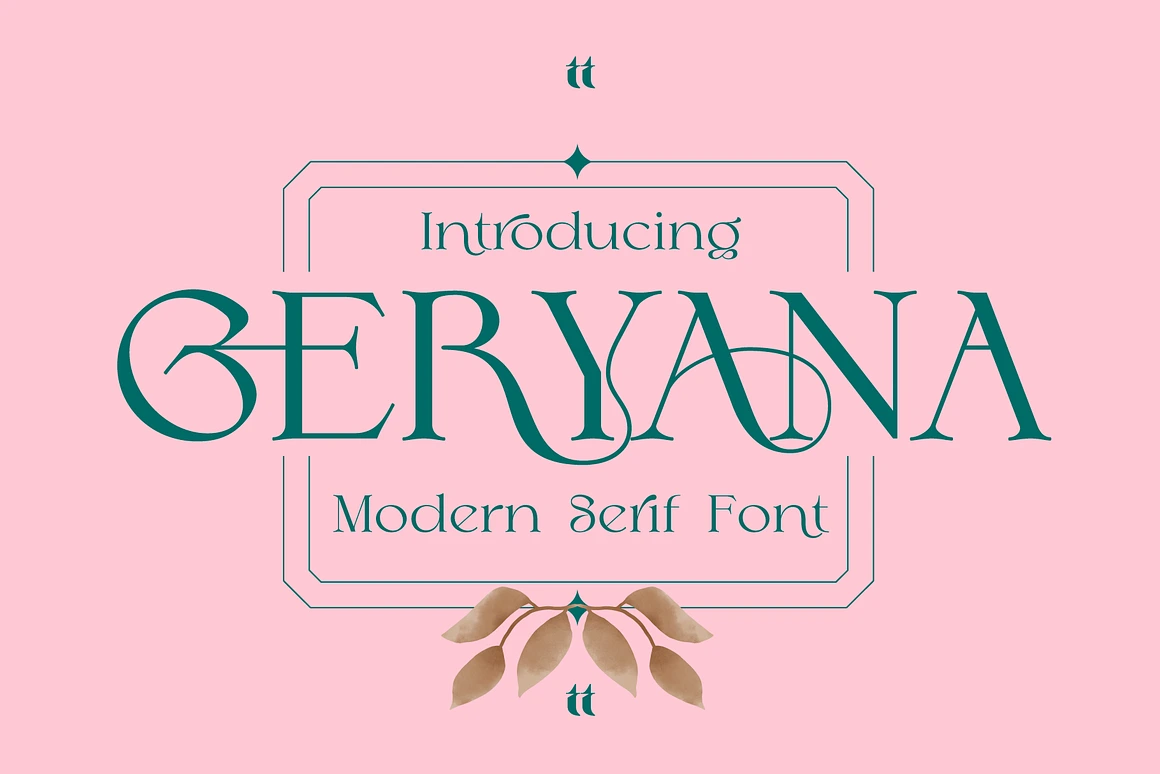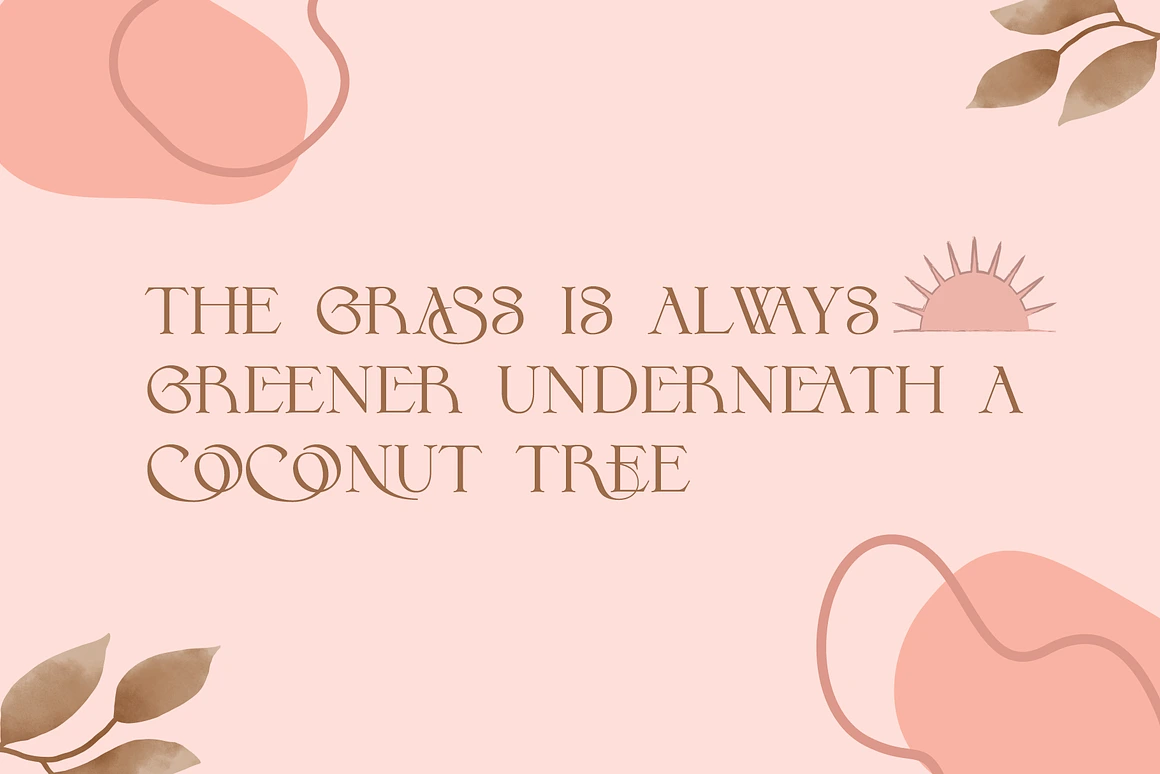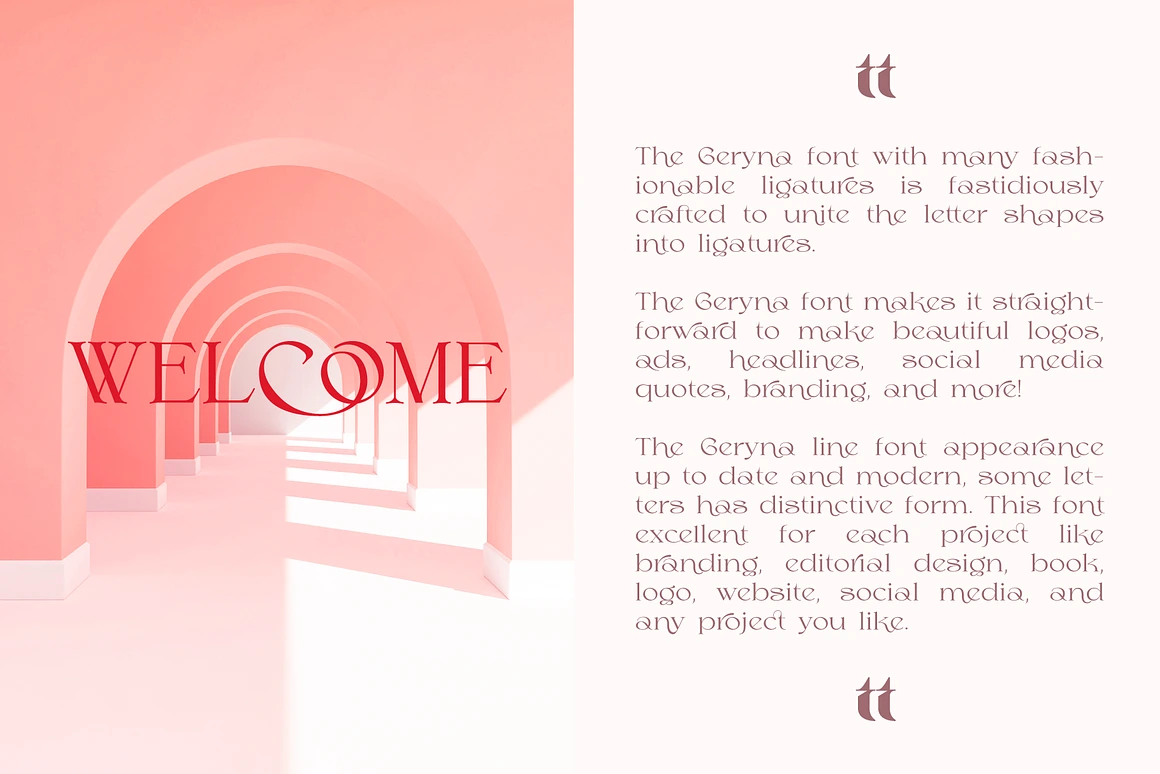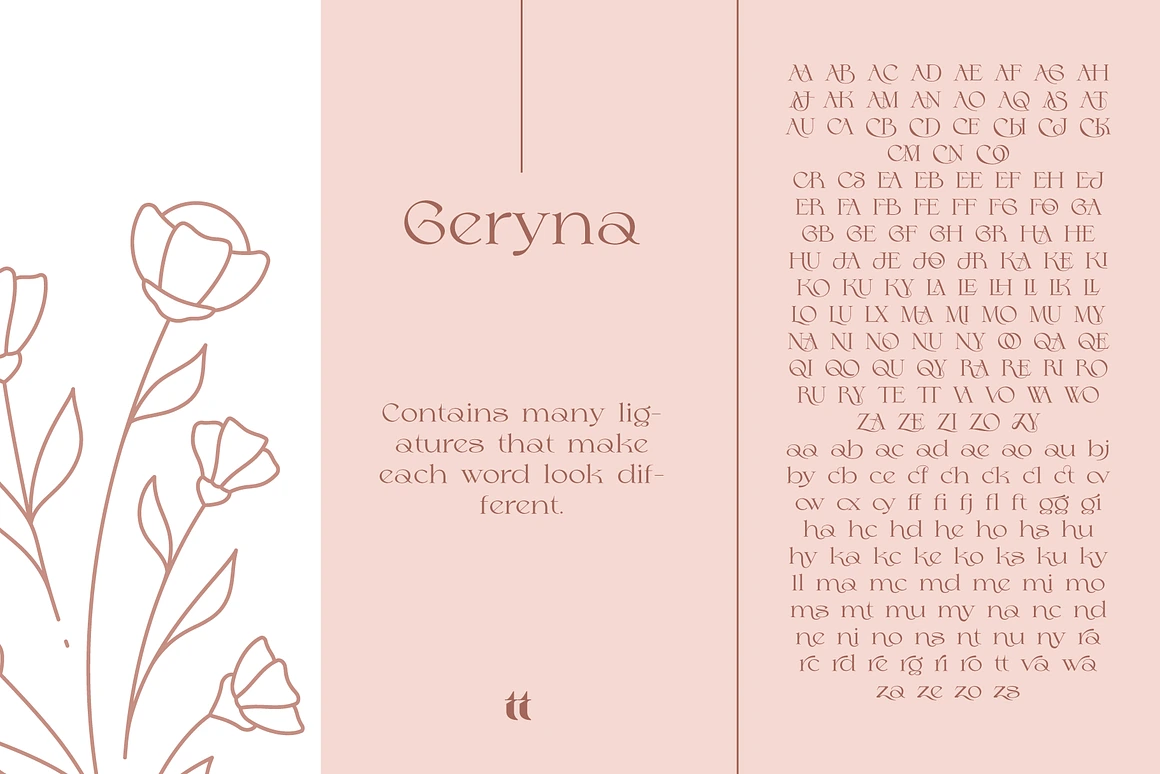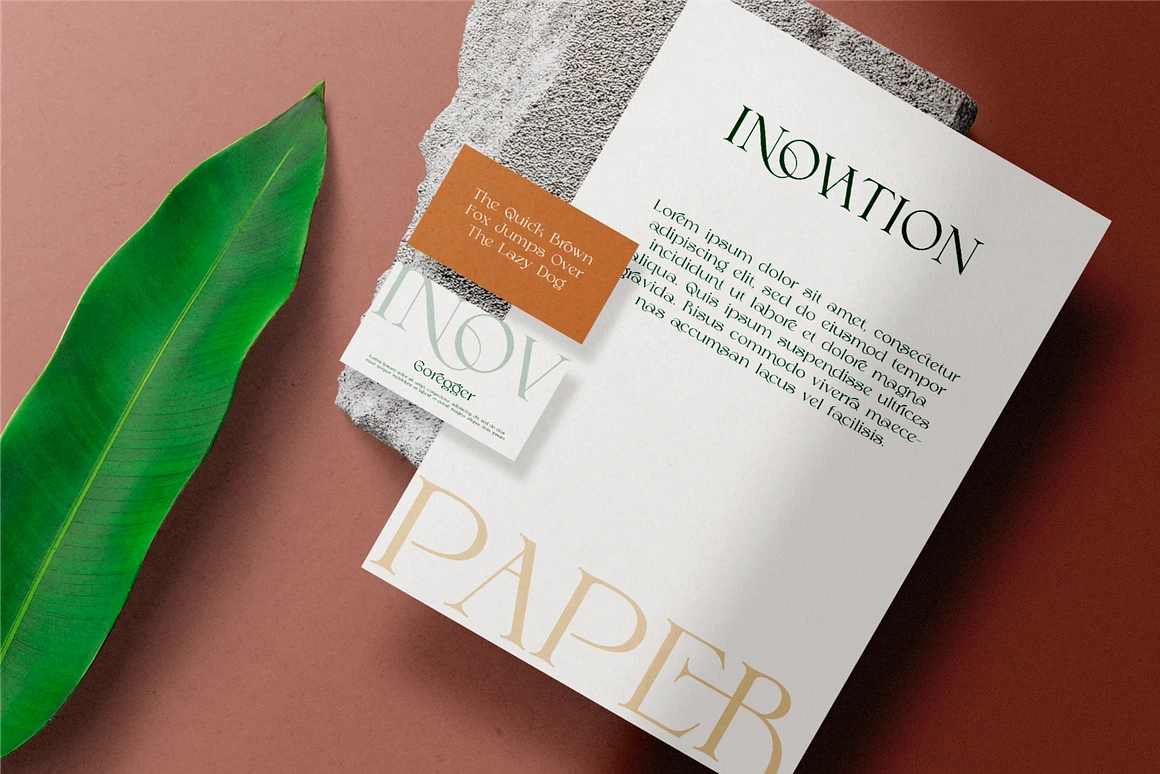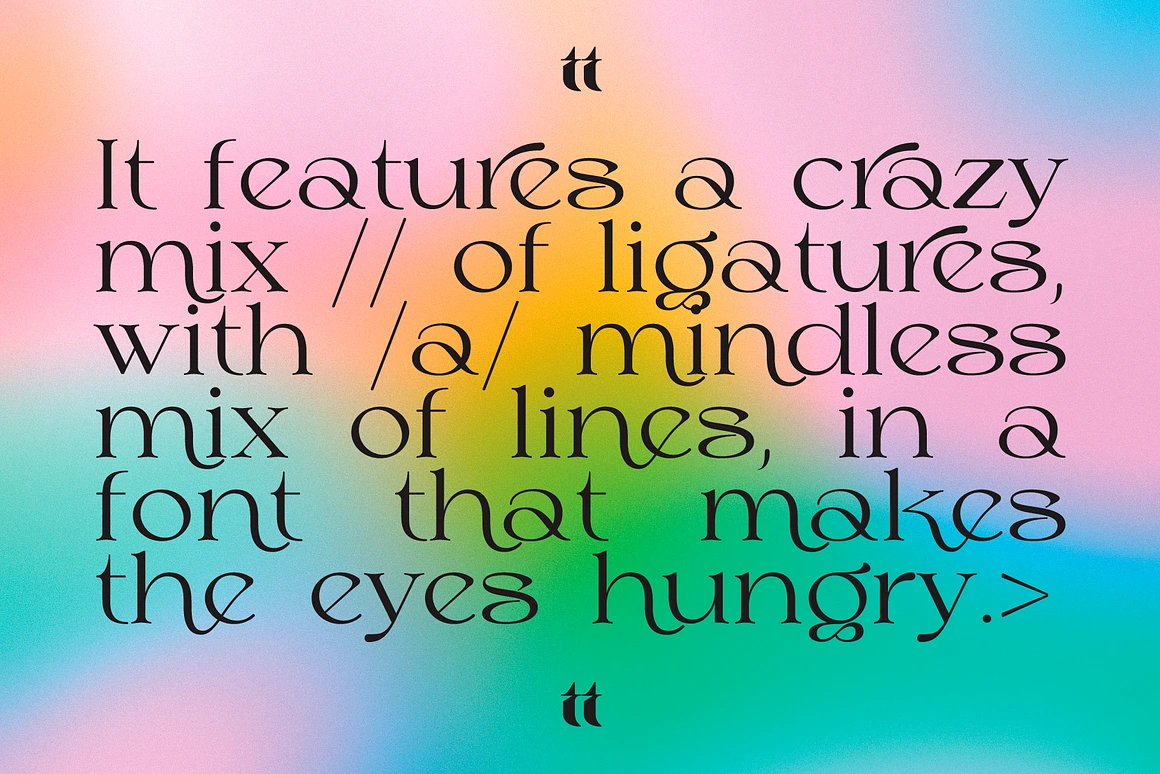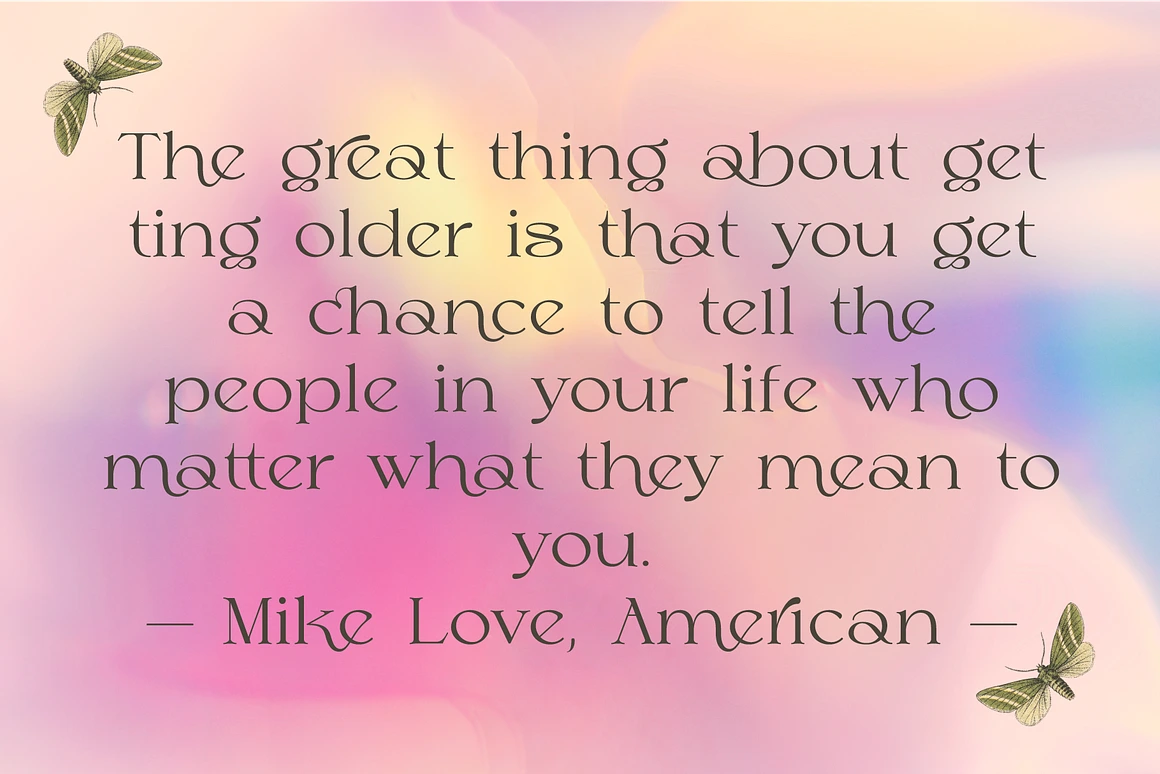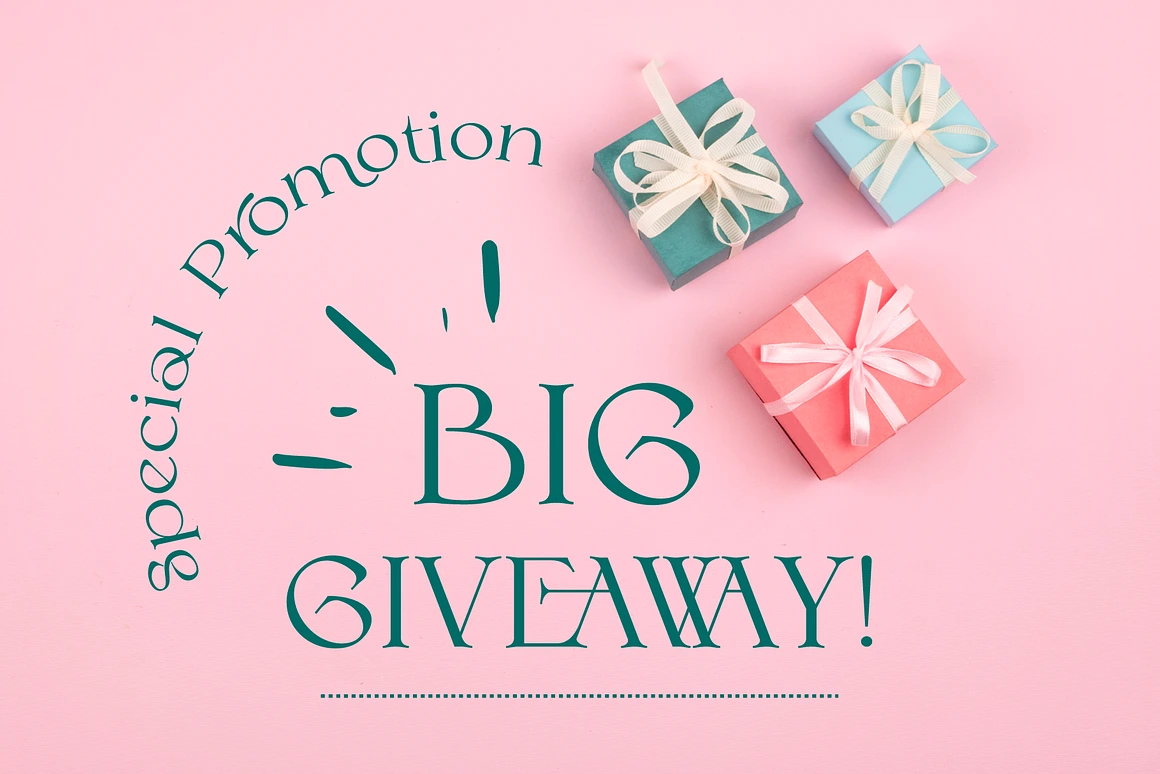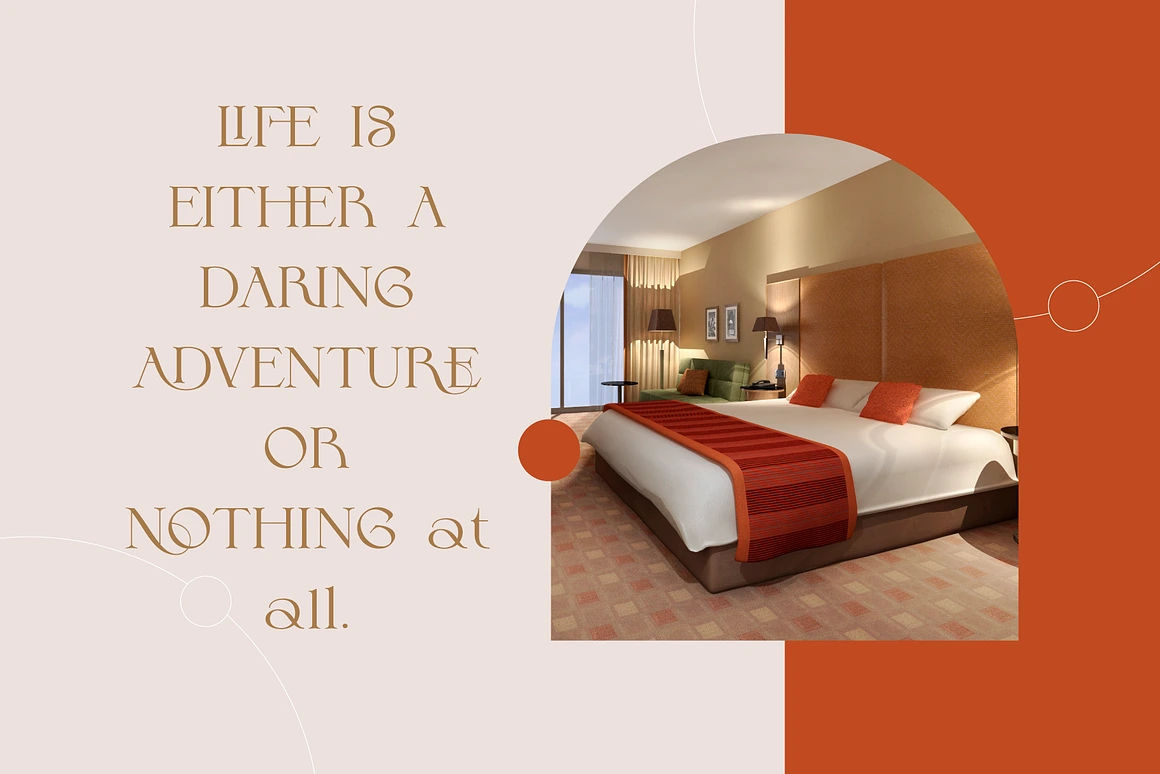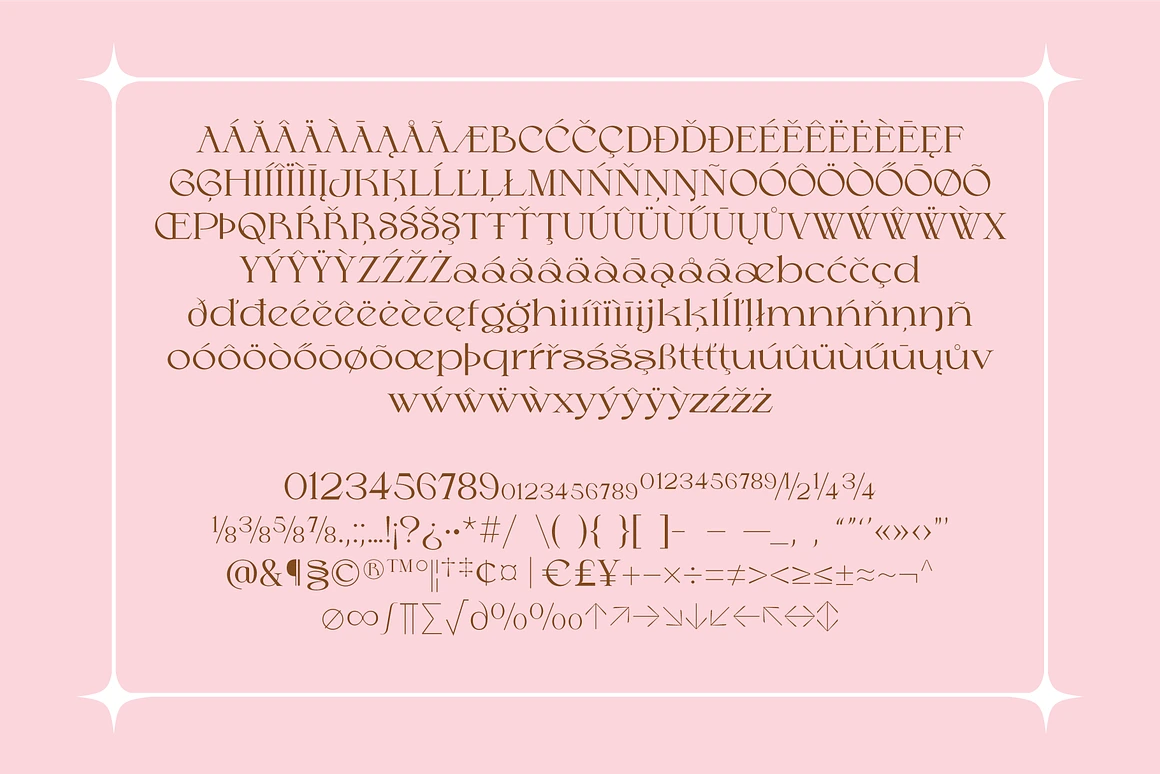
Geryana Modern Serif Font
The Geryana Modern Serif Font, featuring numerous stylish ligatures, is meticulously designed to create seamless letter connections and elegant typography.
Geryana Modern Serif Font makes it easy to craft stunning logos, advertisements, headlines, social media quotes, branding materials, and more!
With its modern and contemporary look, Geryna includes uniquely shaped letters that stand out. This font is perfect for a wide range of projects such as branding, editorial design, books, logos, websites, social media posts, and anything else you envision.